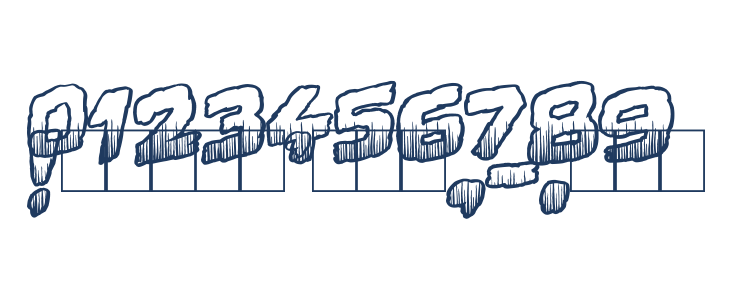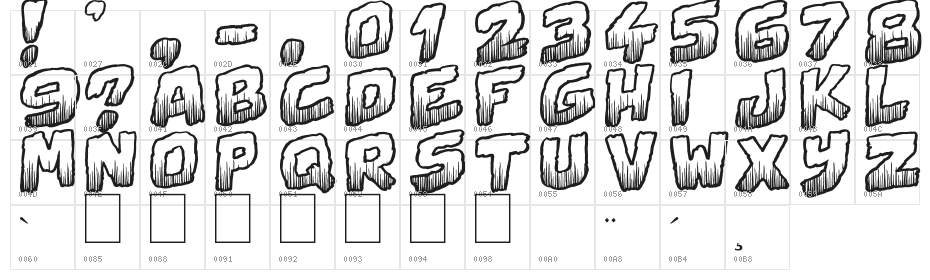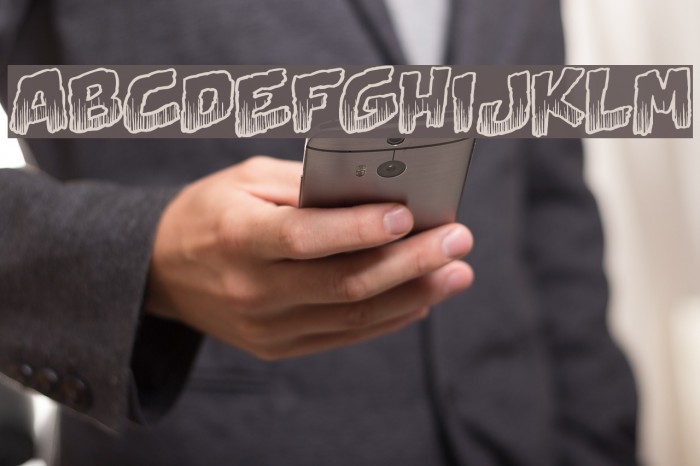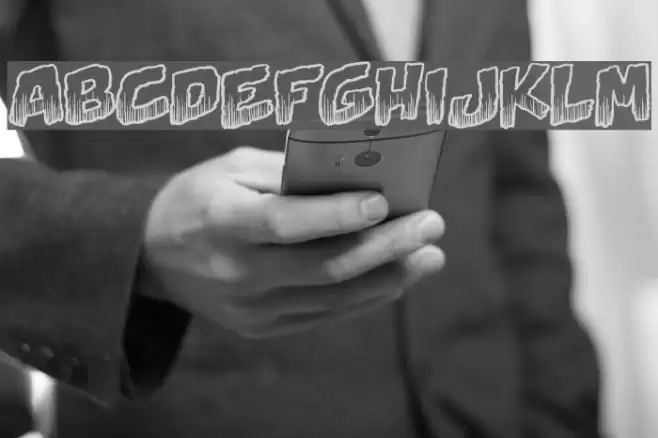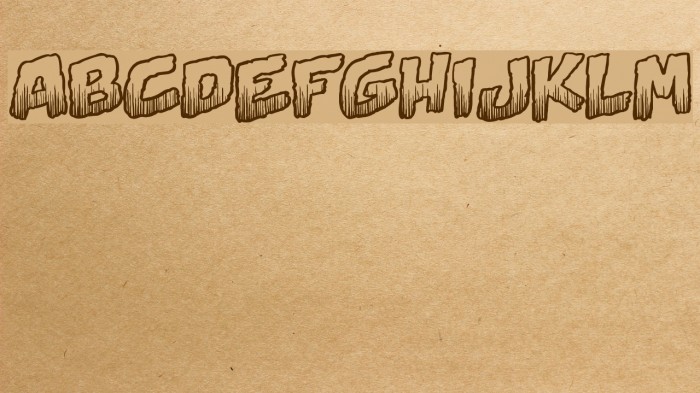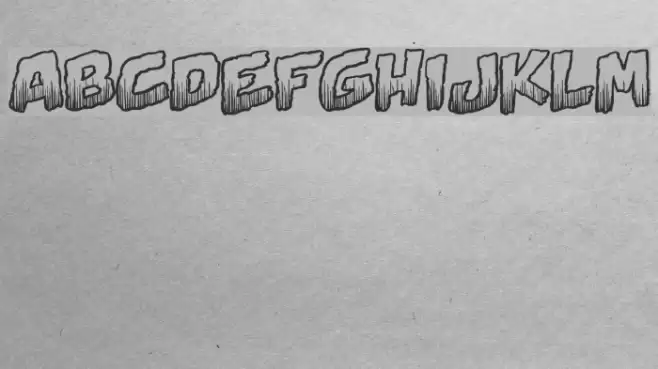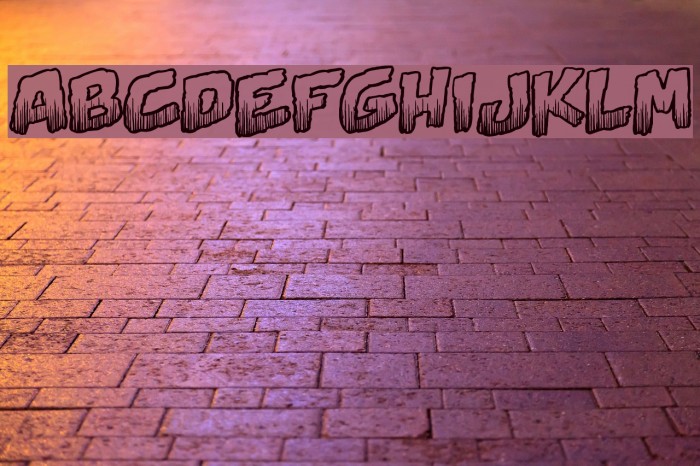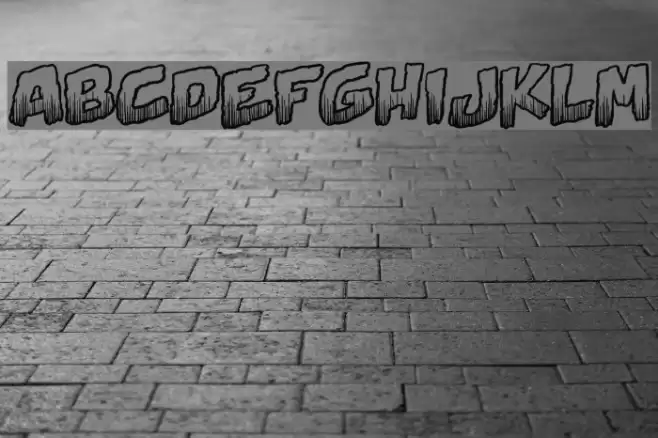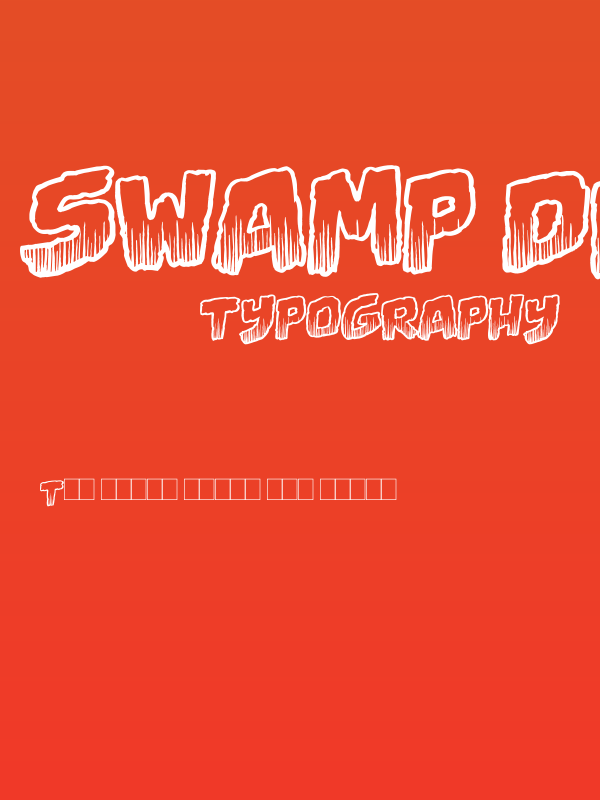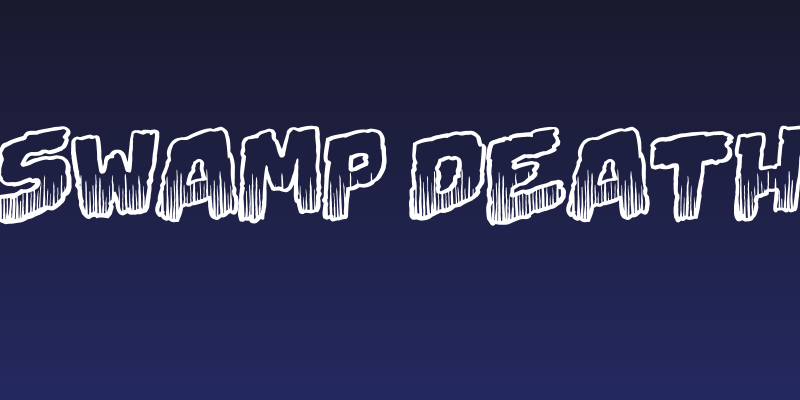
Swamp Death Font
Swamp Death Description
This font features a bold, rugged style with a hand-drawn appearance, reminiscent of comic book lettering or graffiti. The characters are thick and have a textured, uneven edge that gives them a dynamic and energetic feel. The uppercase and lowercase letters maintain a consistent style, with exaggerated curves and angles that add to the font's playful and informal nature. The numbers and special characters follow the same design principles, ensuring a cohesive look across all elements. This font is ideal for projects that require a bold statement or a touch of whimsy.
| Proposed Projects | Perfect for comic books, posters, album covers, and creative branding projects. |